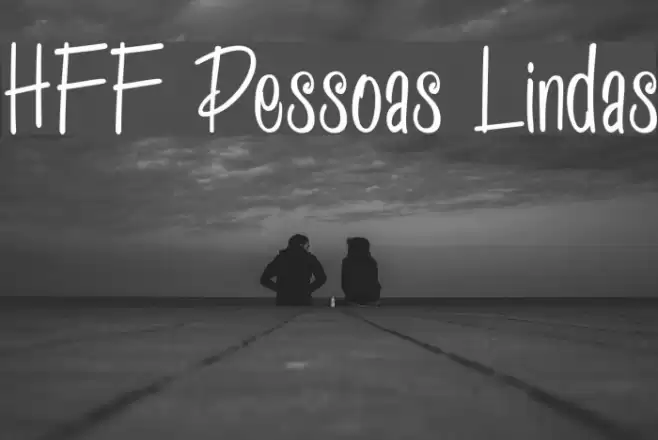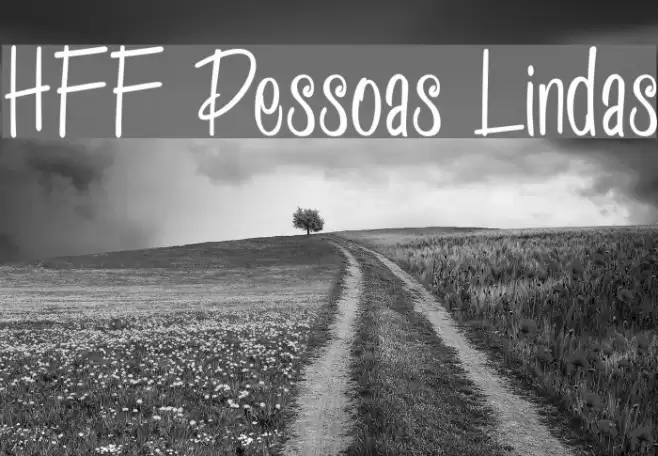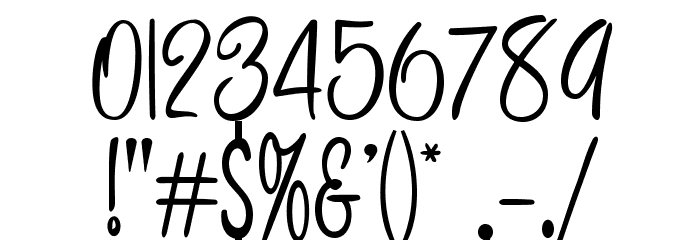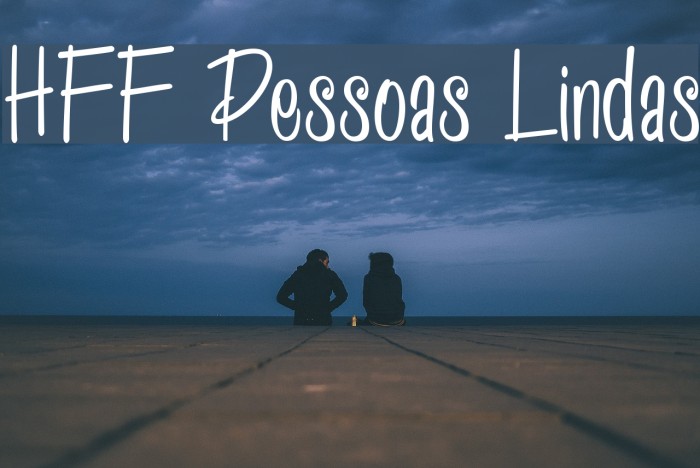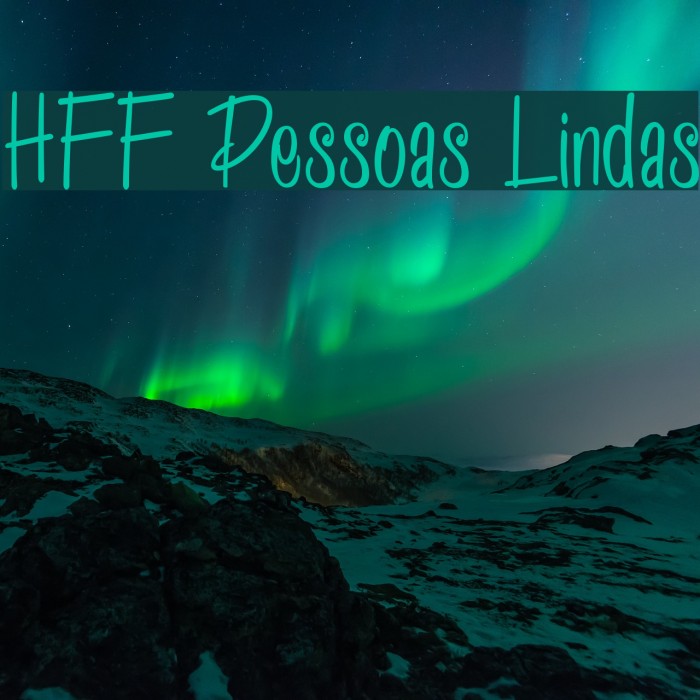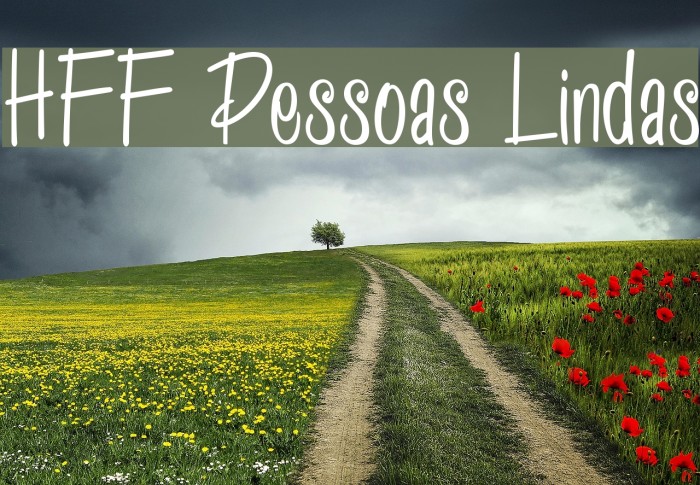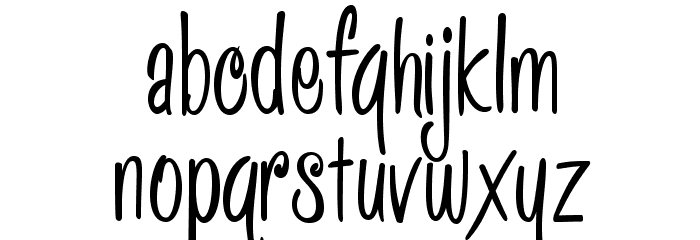
HFF Pessoas Lindas Font
HFF Pessoas Lindas Description
This font features a playful and whimsical handwritten style, characterized by its tall, narrow letters with a slight slant. The strokes are smooth and fluid, giving it a casual and friendly appearance. The uppercase letters are bold and prominent, while the lowercase letters maintain a consistent flow, enhancing readability. Numbers and special characters are crafted with the same playful touch, ensuring a cohesive look across all text. The font's unique charm makes it suitable for projects that require a personal and approachable feel.
A playful handwritten font with tall, narrow letters and a casual style from Uncategorized fonts.
- Proposed Projects: Ideal for greeting cards, invitations, children's books, and playful branding.
- Overall Style: Casual
- Use Case: Headlines, Logos, Invitations